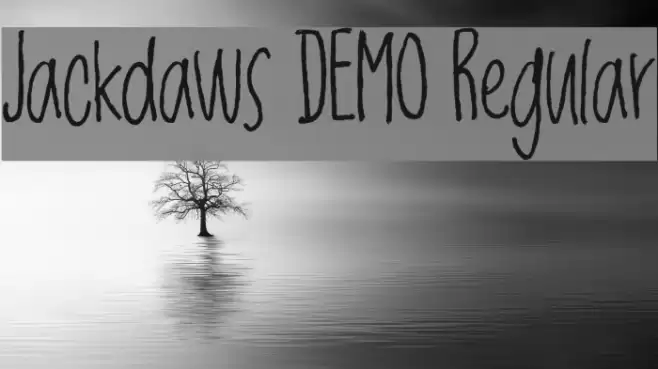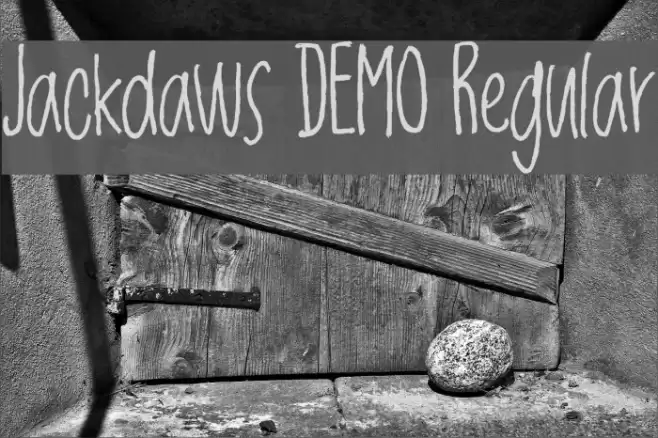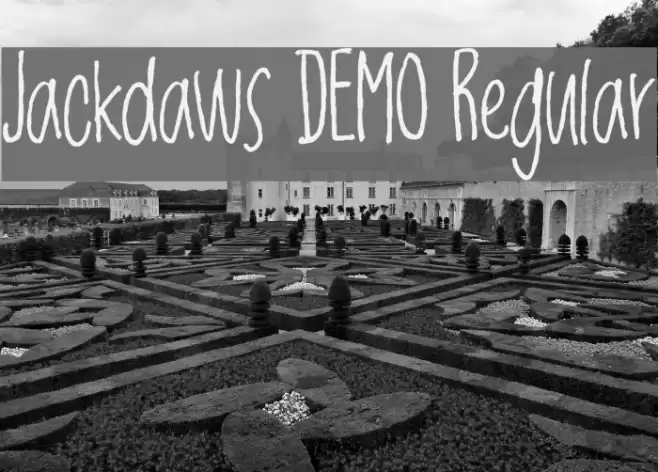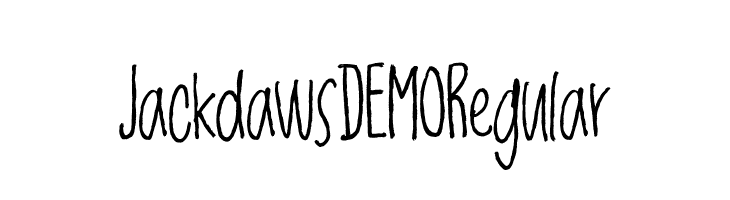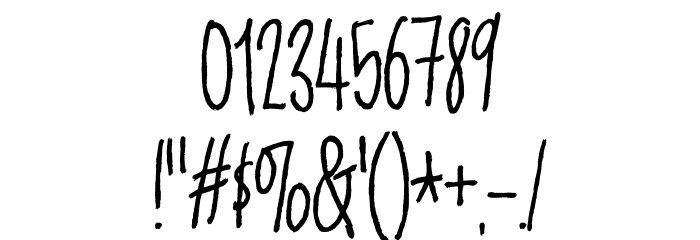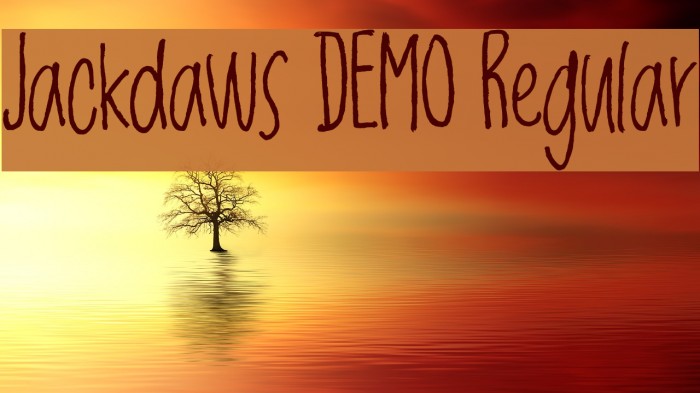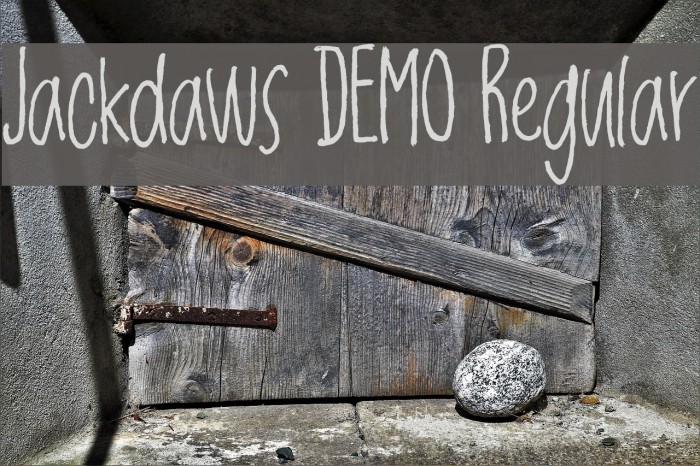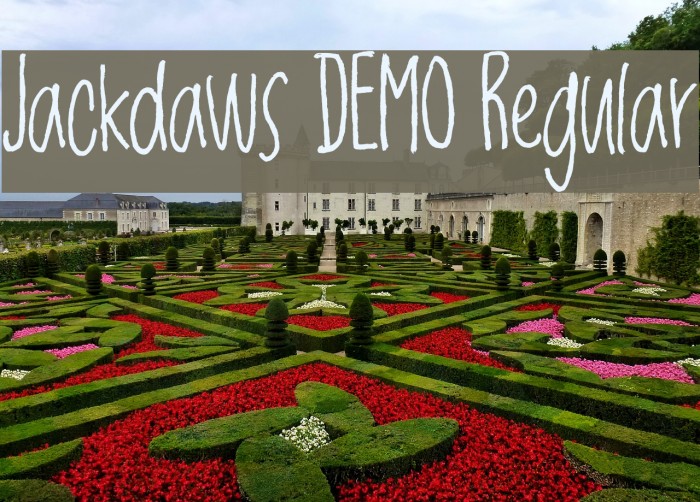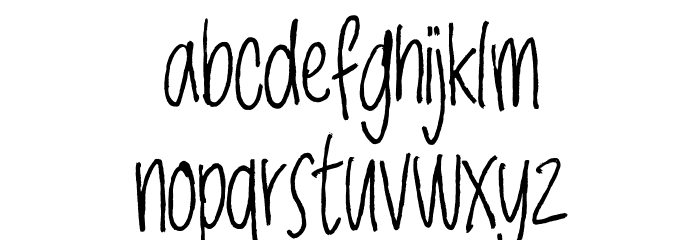
Jackdaws DEMO Regular Font
Jackdaws DEMO Regular Description
This font features a playful and handwritten style, characterized by its tall and narrow letterforms. The strokes are uneven, giving it a casual and organic feel. The uppercase letters maintain a consistent height, while the lowercase letters have a slightly varied baseline, adding to the informal aesthetic. The numbers and special characters follow the same whimsical design, making it suitable for creative projects. The overall appearance is lively and dynamic, perfect for capturing attention in a fun and engaging way.
A playful, handwritten font with tall, narrow letters and an informal style from Uncategorized fonts.
- Proposed Projects: Ideal for greeting cards, children's books, playful branding, and social media graphics.
- Overall Style: Casual
- Use Case: Headlines, Logos, Informal Text